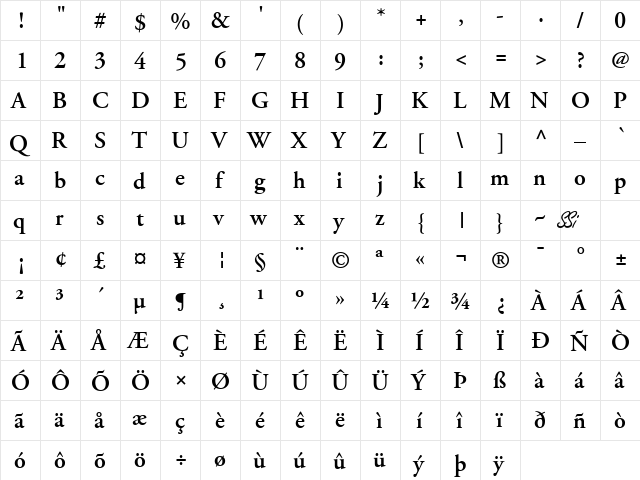
Garamond SSi Semi Bold
Design Context for Garamond SSi Typeface
Garamond SSi is a composed and adaptable typeface that performs quietly and consistently across a wide range of design contexts. The heavy weight commands attention and anchors typographic hierarchies.